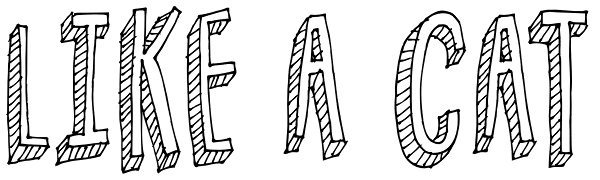
Like A Cat
As a kid I used to write my favourite football teams name with 3D letters over and over again. I spent hours doing this - often to find out I had the colors wrong, or I had made a spelling error or two - but now, several years after, I have created...